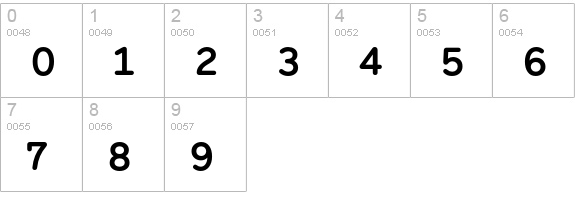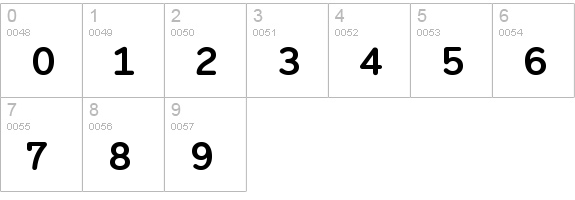
Maax Rounded Medium is a balanced, medium-weight variant in the Maax typeface family \xE2\x80\x94 well suited to sub-headlines, navigation, and balanced editorial work.
Maax Rounded Medium is a modern and versatile font that strikes the perfect balance between professionalism and friendliness. Its rounded edges give a soft and approachable appearance, making it ideal for a wide range of design projects. Whether you are creating branding materials, advertisements, websites, or any other visual content, Maax Rounded Medium will add a touch of modern elegance to your work. What's even better is that Maax Rounded Medium is available for free download at FontsMarket.com. This means you can easily access this high-quality font without any cost, making it a great addition to your font collection. With its clean lines and readability, Maax Rounded Medium is sure to elevate the visual appeal of your designs and help you stand out from the crowd.